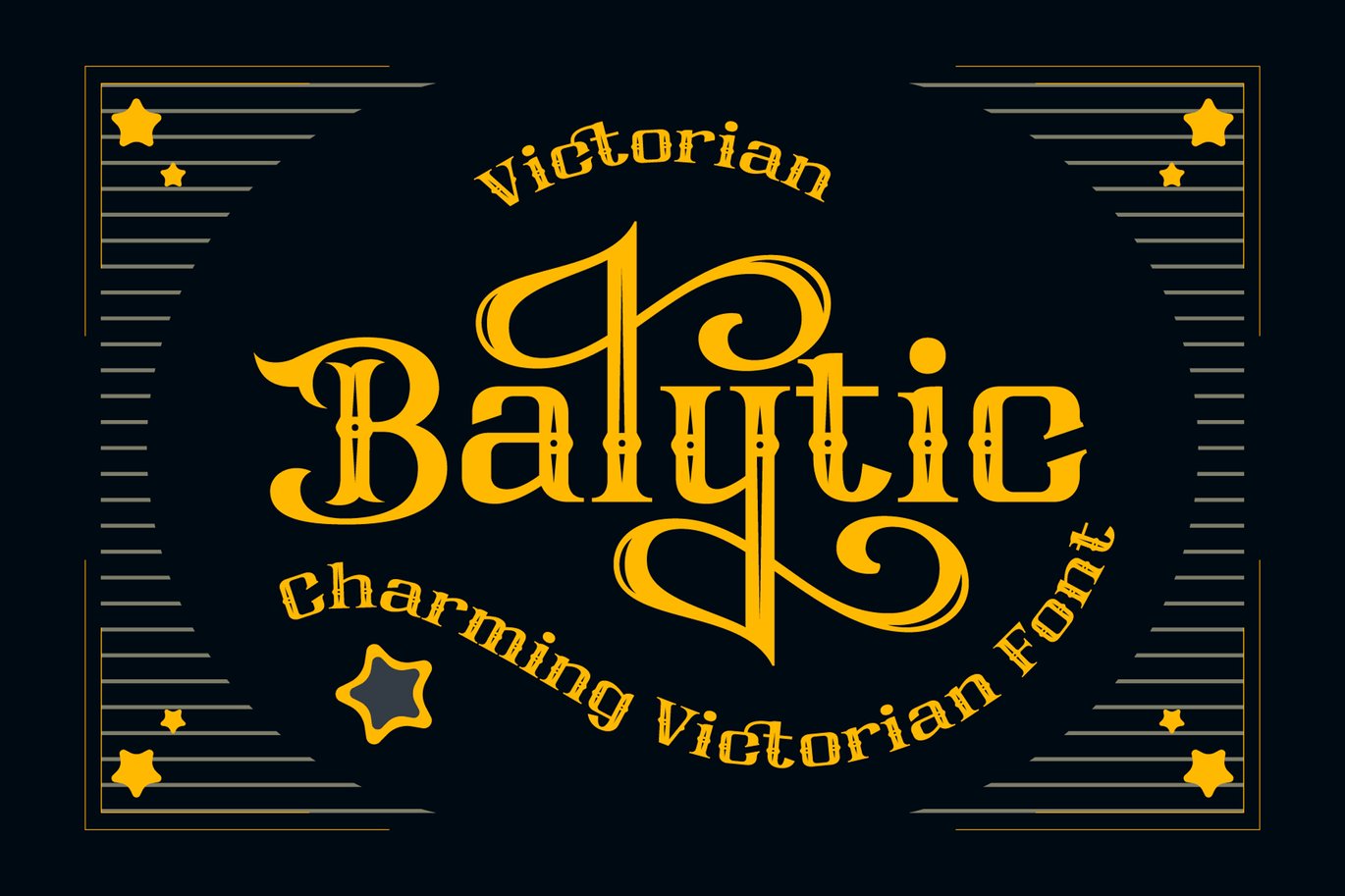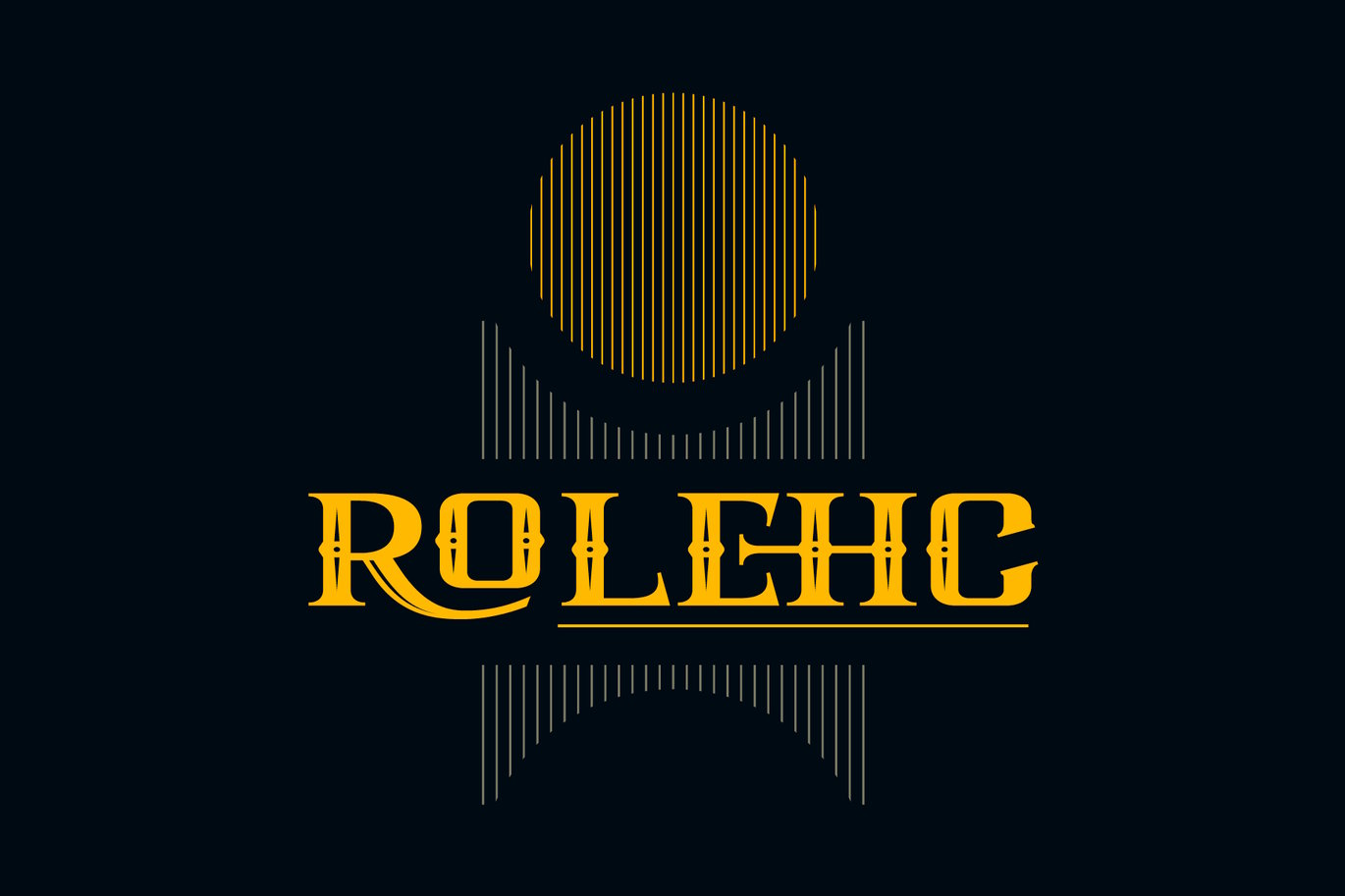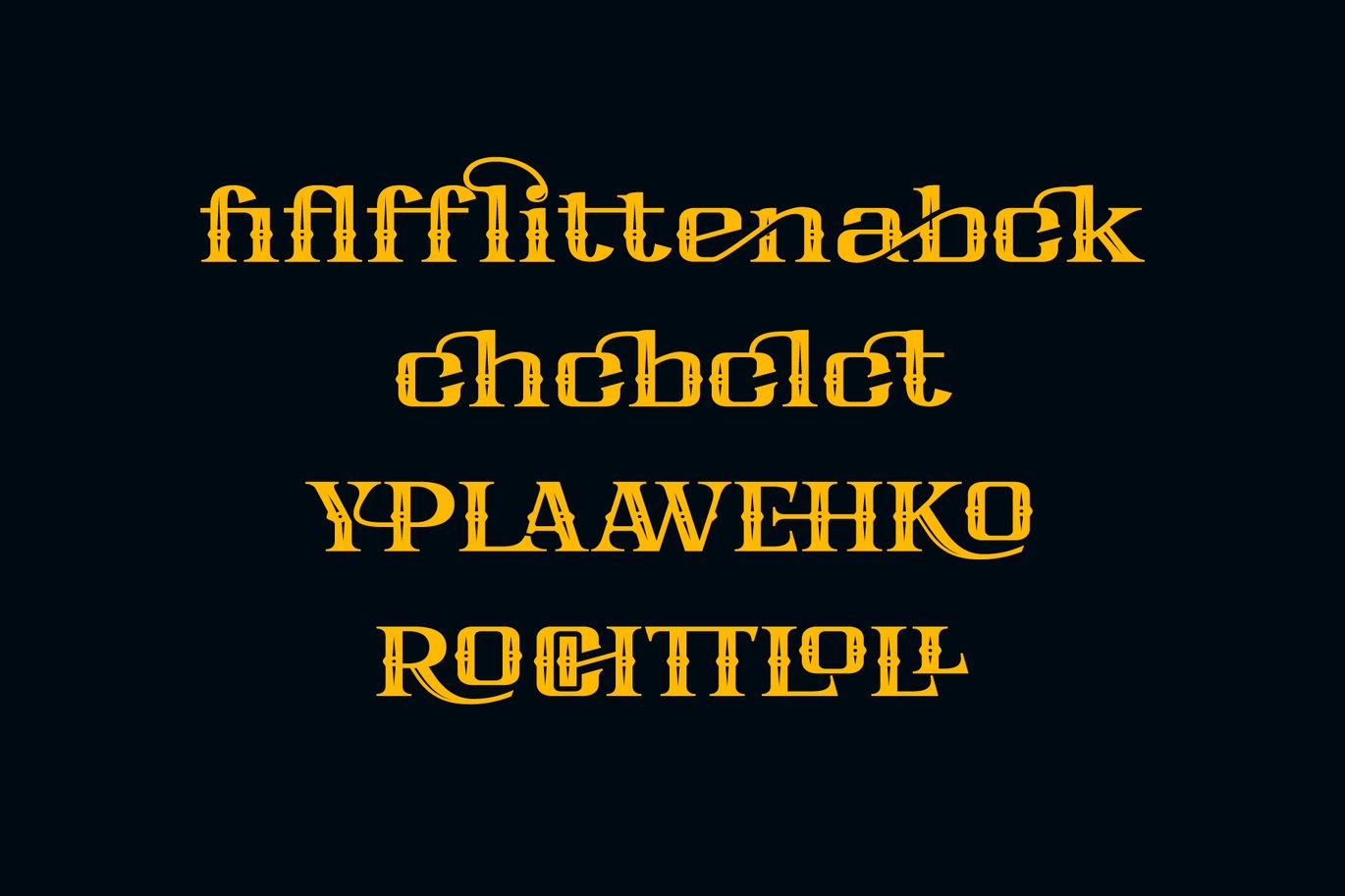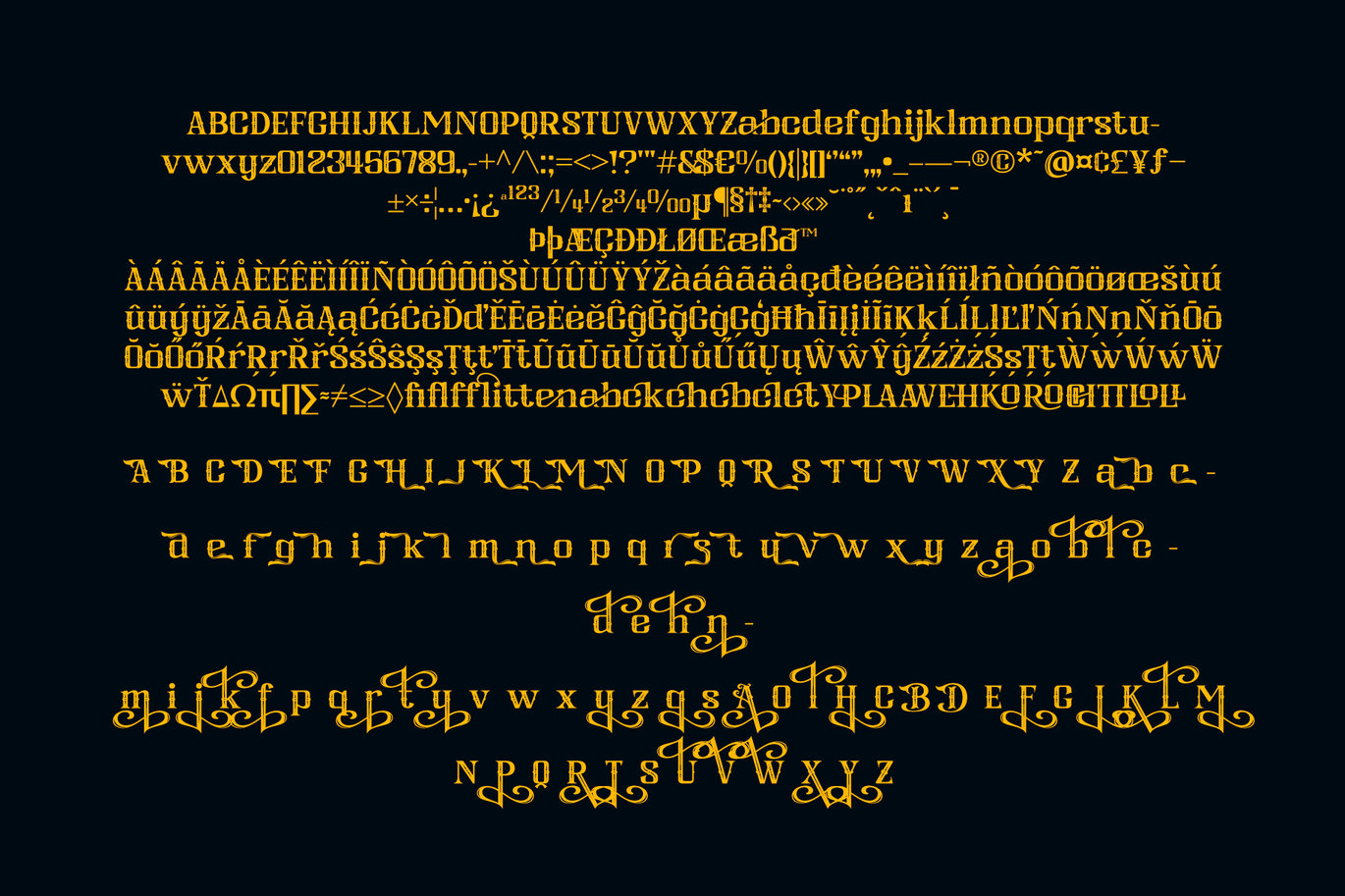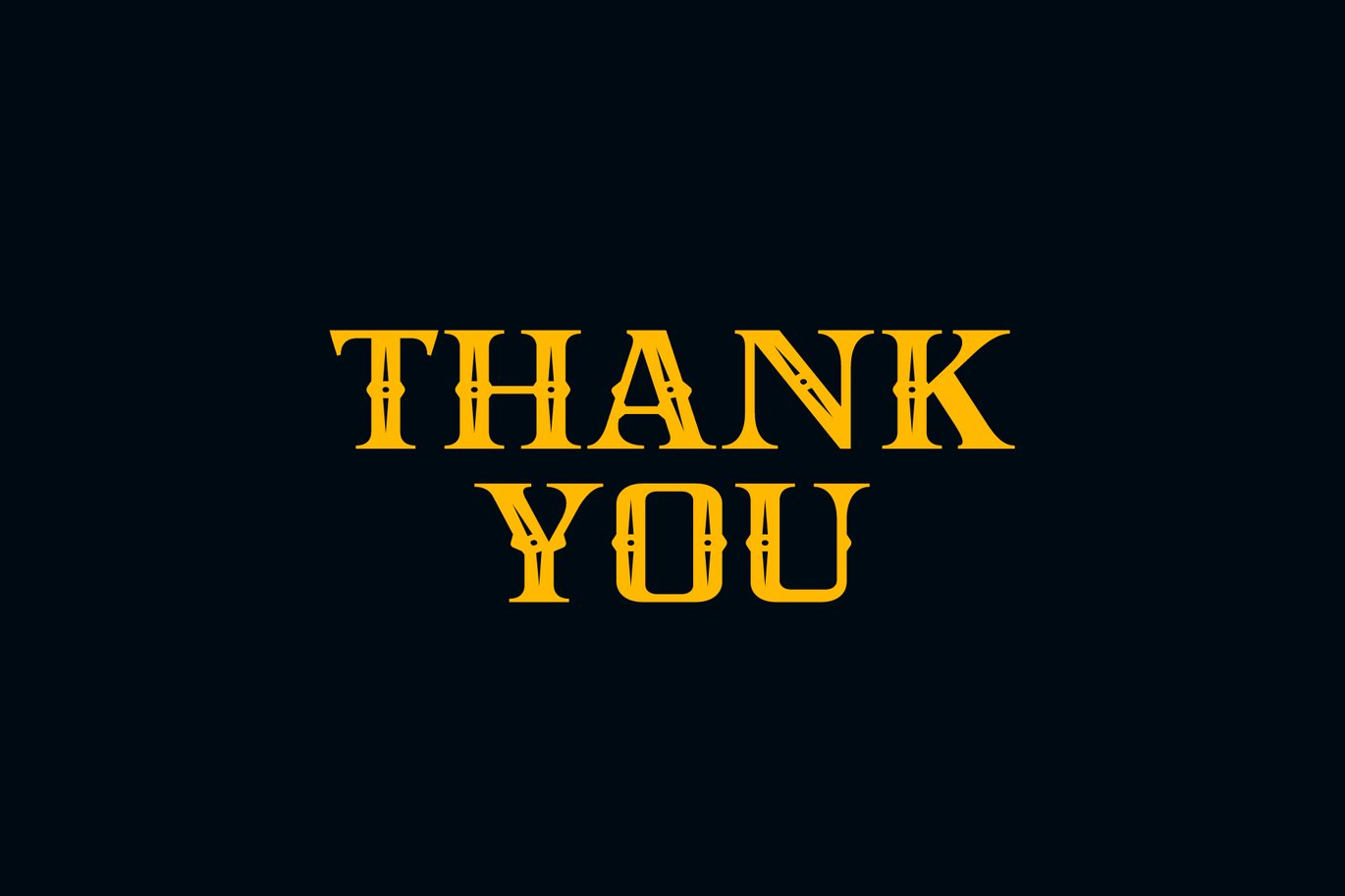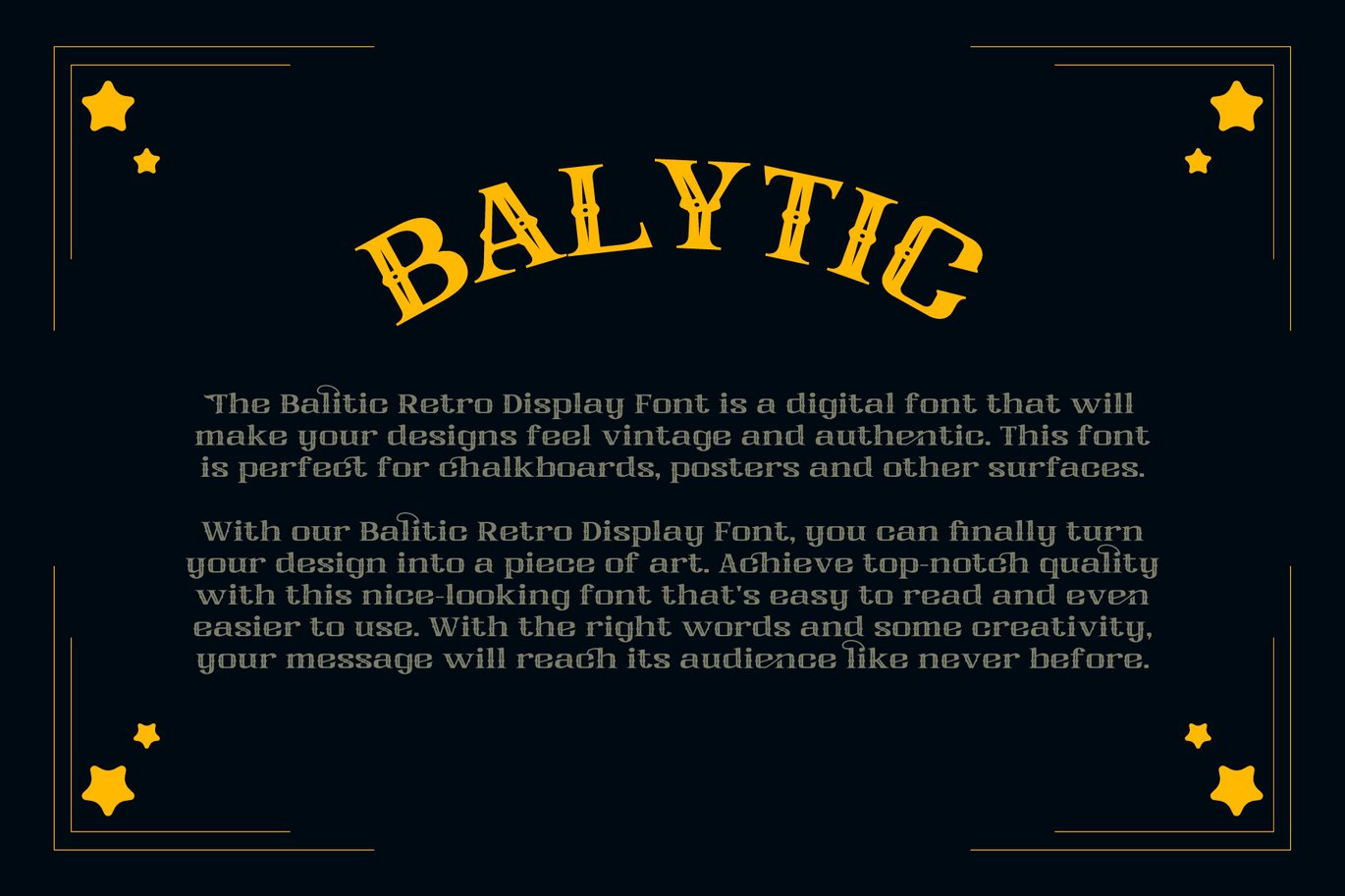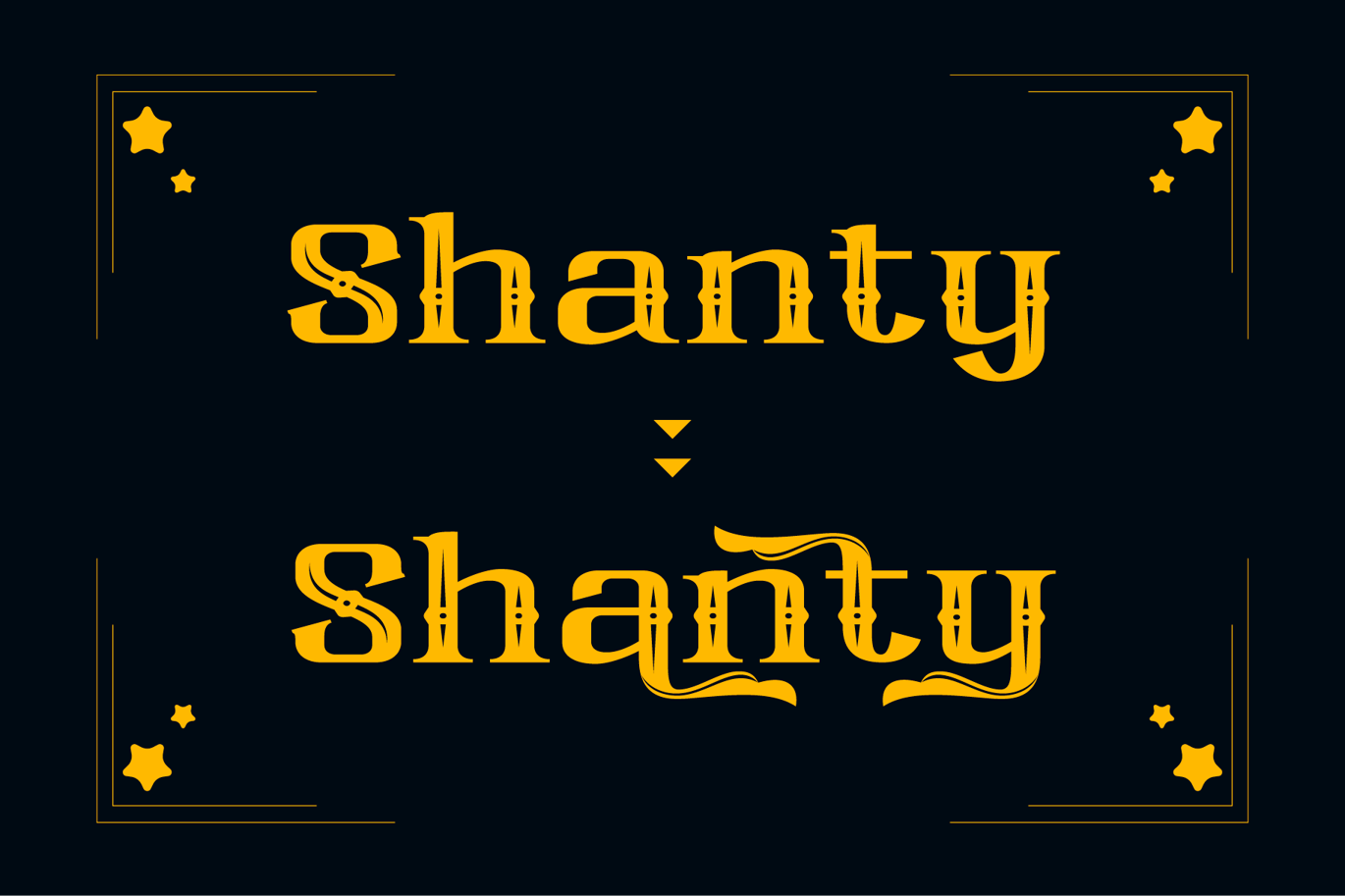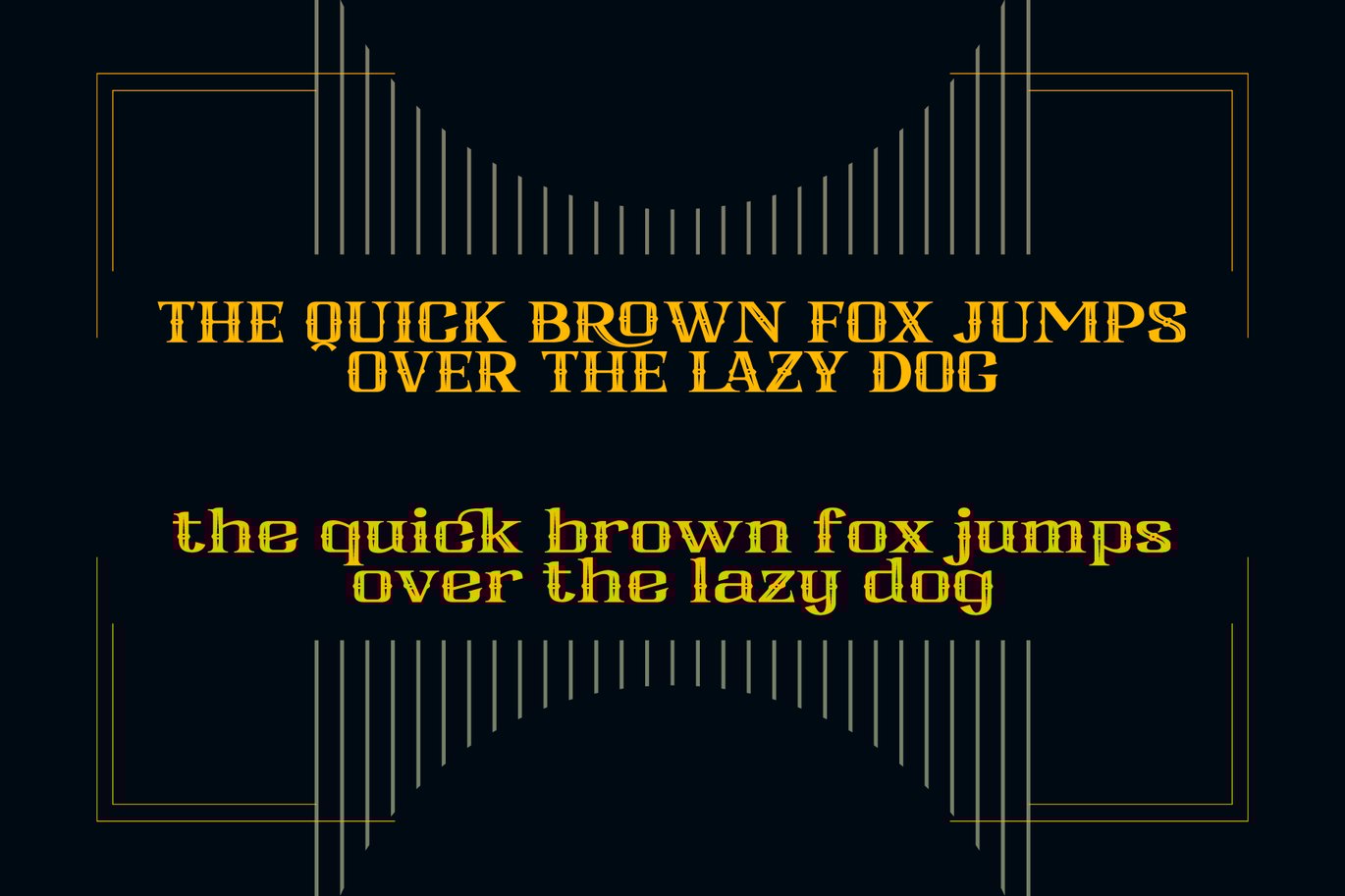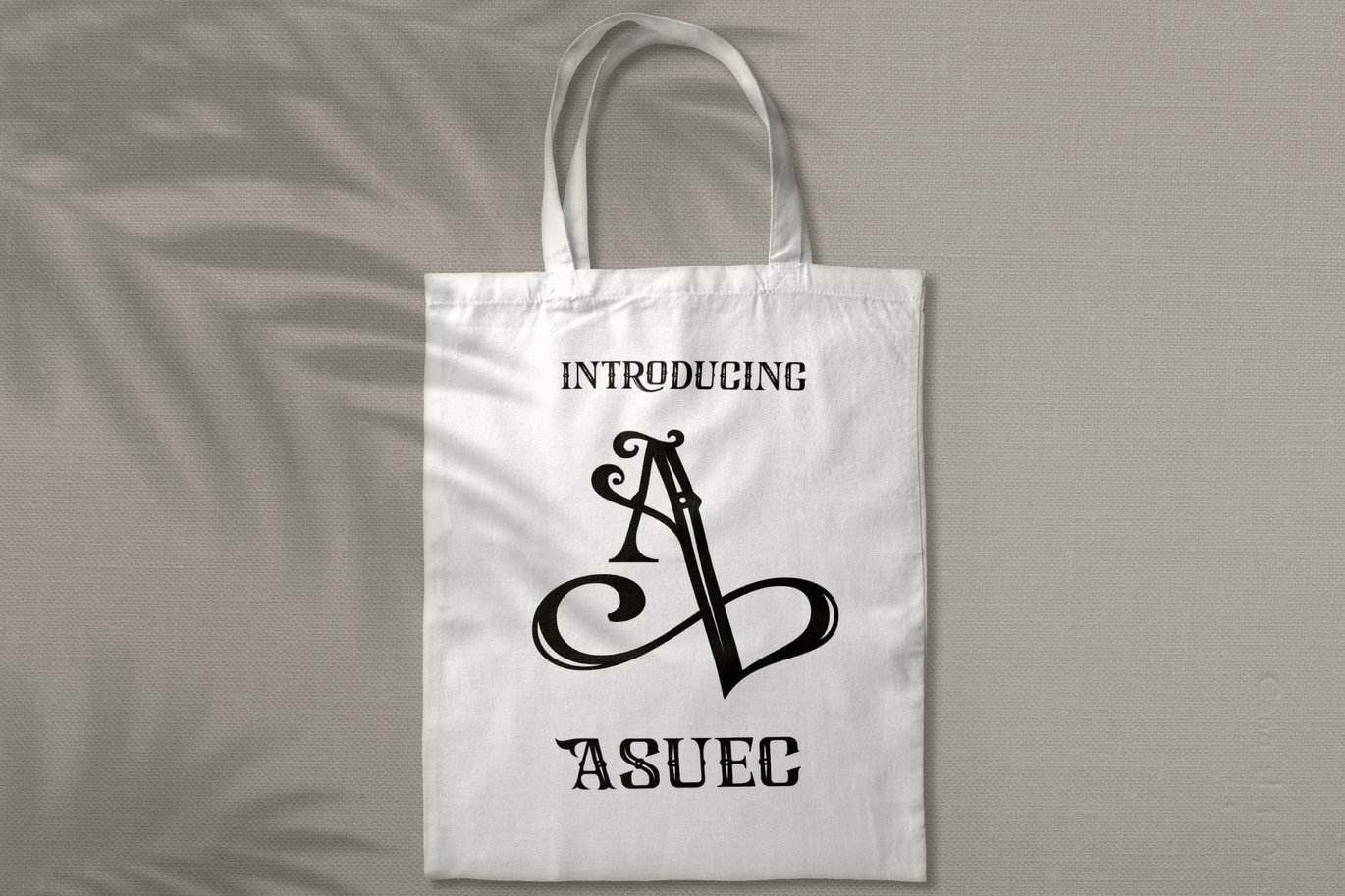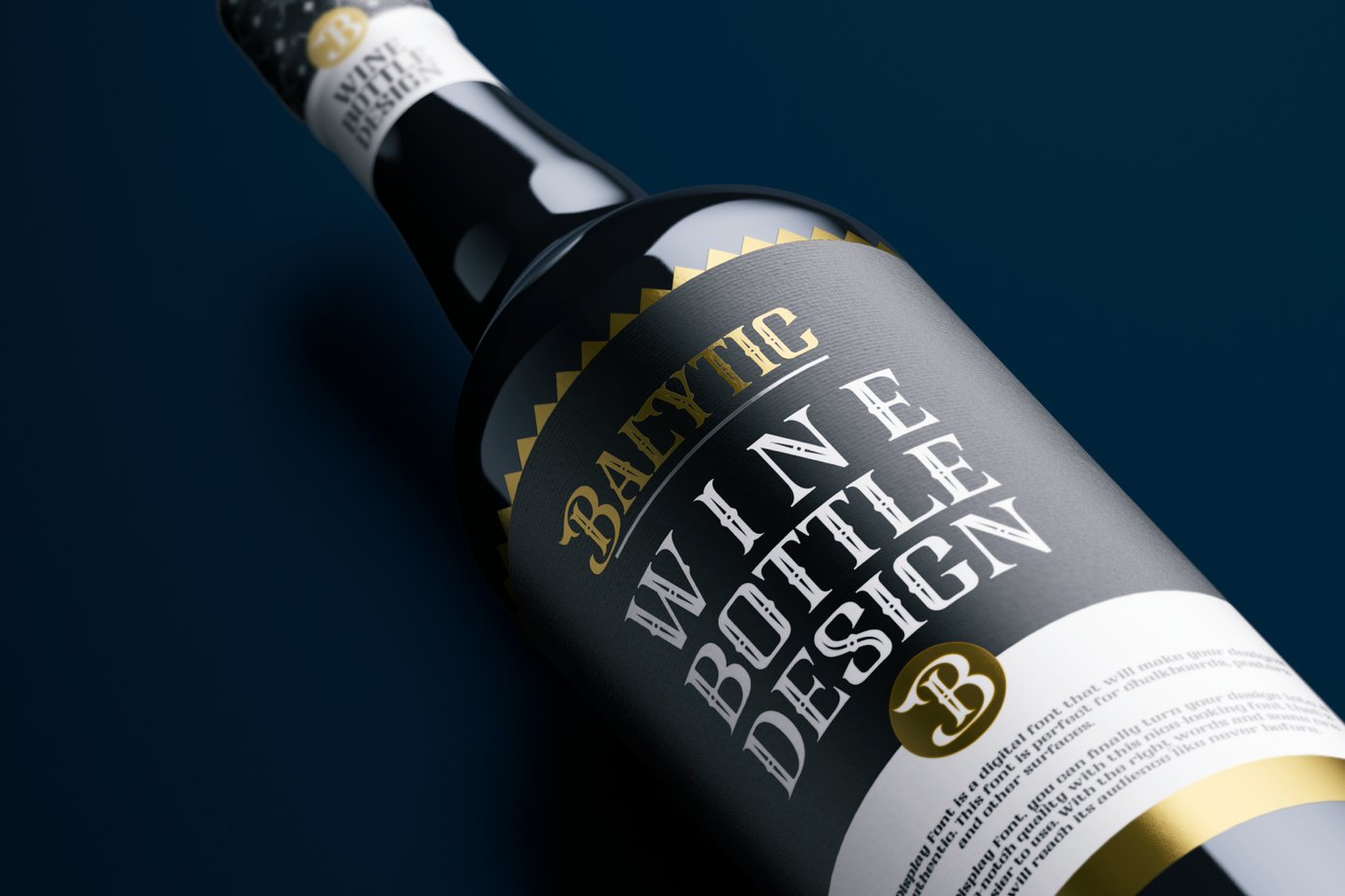
Balytic Charming Victorian Font
Balytic Charming Victorian Font is a digital font that will make your designs feel vintage and authentic. This font is perfect for chalkboards, posters and other surfaces.
With our Balytic Charming Victorian Font, you can finally turn your design into a piece of art. Achieve top-notch quality with this nice-looking font that’s easy to read and even easier to use. With the right words and some creativity, your message will reach its audience like never before.